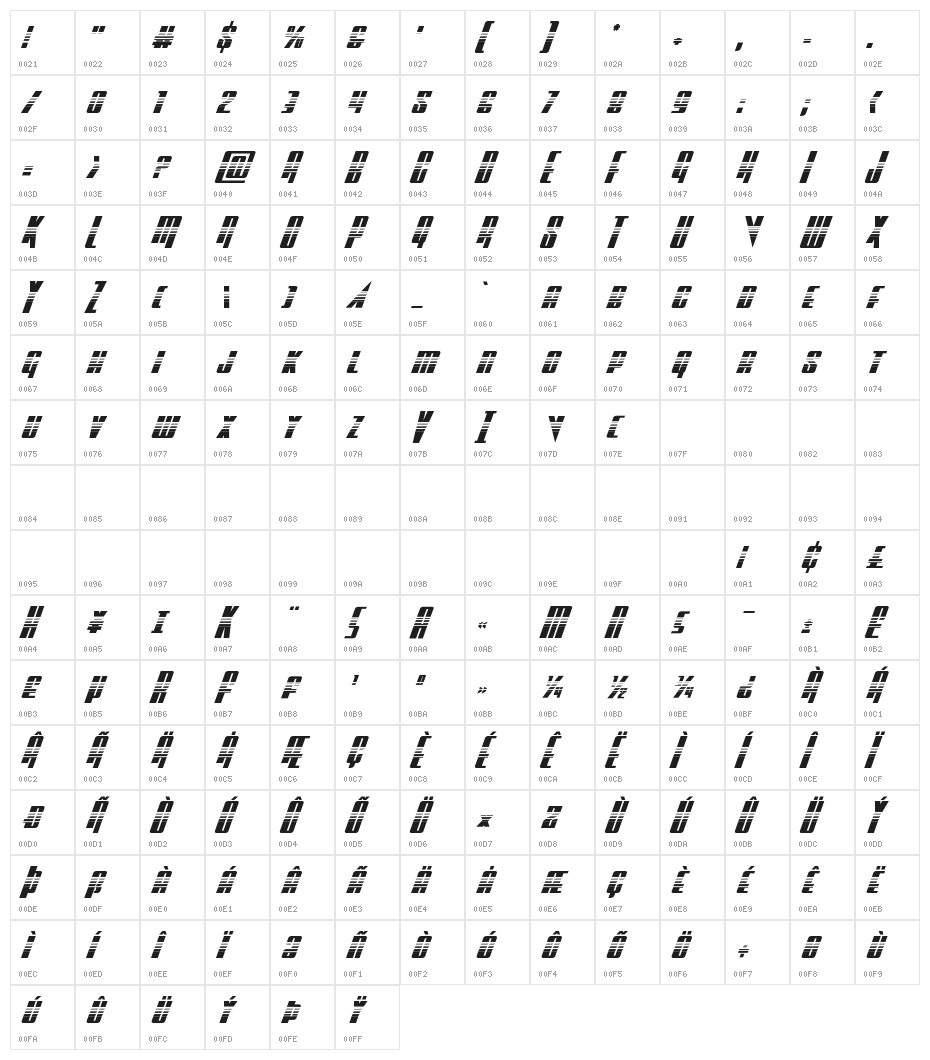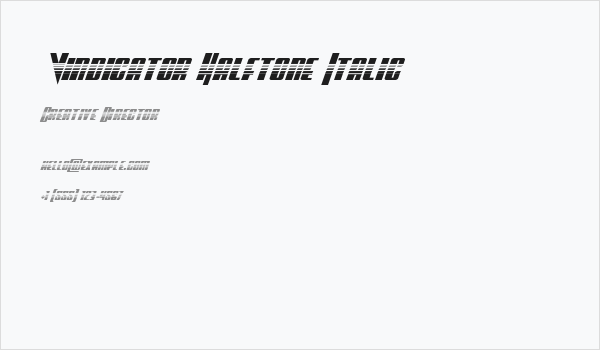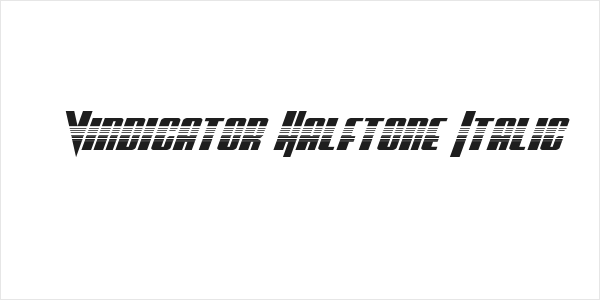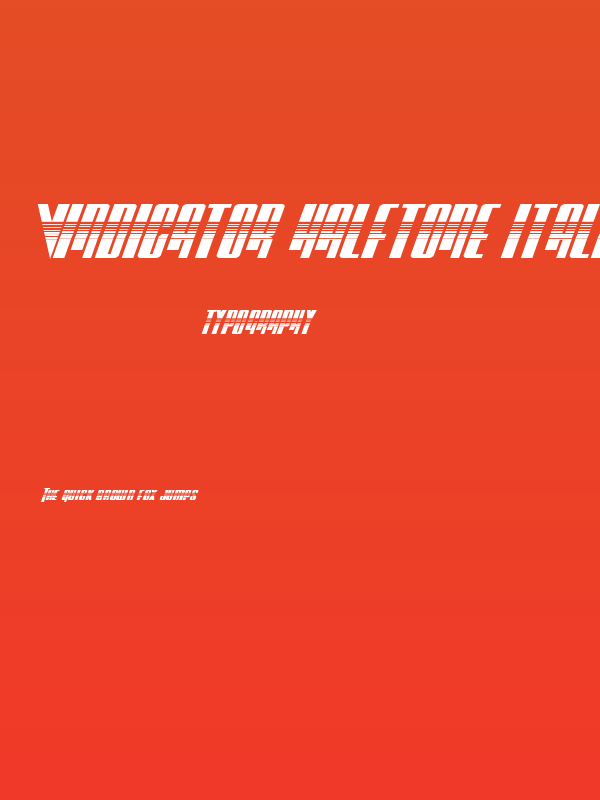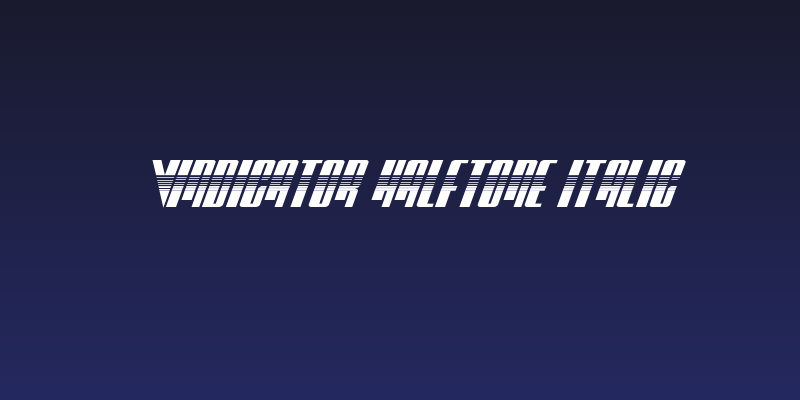
Vindicator Halftone Italic Font
Vindicator Halftone Italic Description
This font features a bold, italicized style with a distinctive halftone effect. The characters are designed with horizontal lines that create a dynamic, textured appearance. The uppercase and lowercase letters maintain a consistent slant, enhancing the italicized look. The numbers and special characters follow the same design principles, ensuring uniformity across all elements. The font's boldness and unique pattern make it stand out, ideal for projects that require a strong visual impact.
| Proposed Projects | Ideal for posters, logos, and headlines that require a bold and modern aesthetic. |